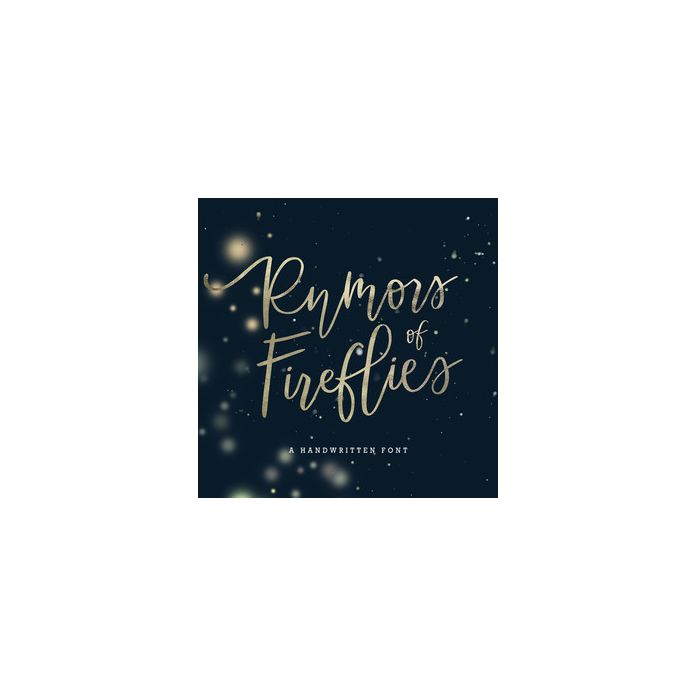
Rumors of Fireflies is a hand lettered font style that is perfect for greeting cards, branding, stationery design, social media, packaging, magazine layouts, prints, logos and more!
This unique font features two complete lowercase alphabets and two uppercase alphabets along with 98 other ligatures and stylistic alternates to create a truly handwritten look and feel.
Rumors of Fireflies has a variety of unique, coded features to create compelling, handmade outcomes.